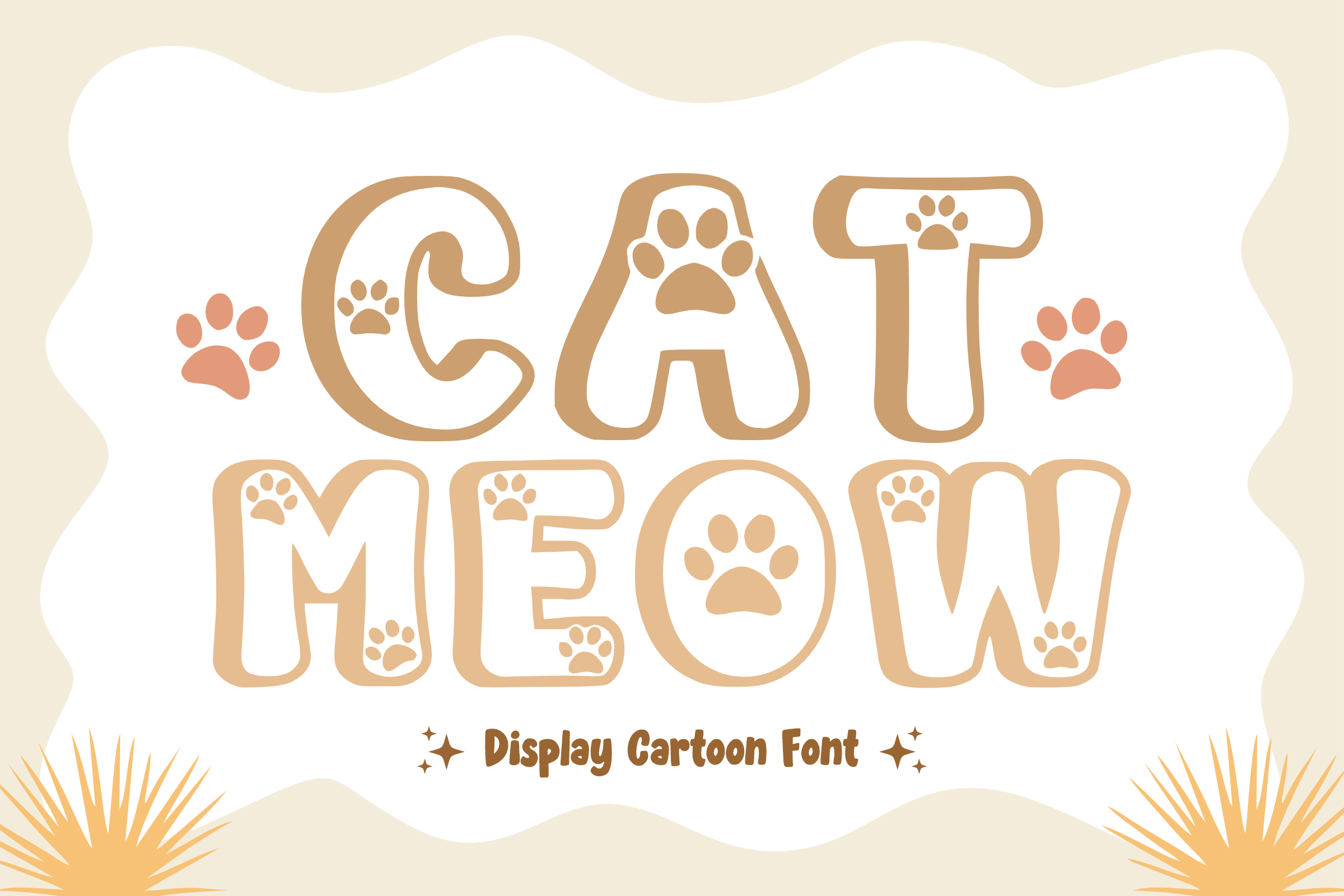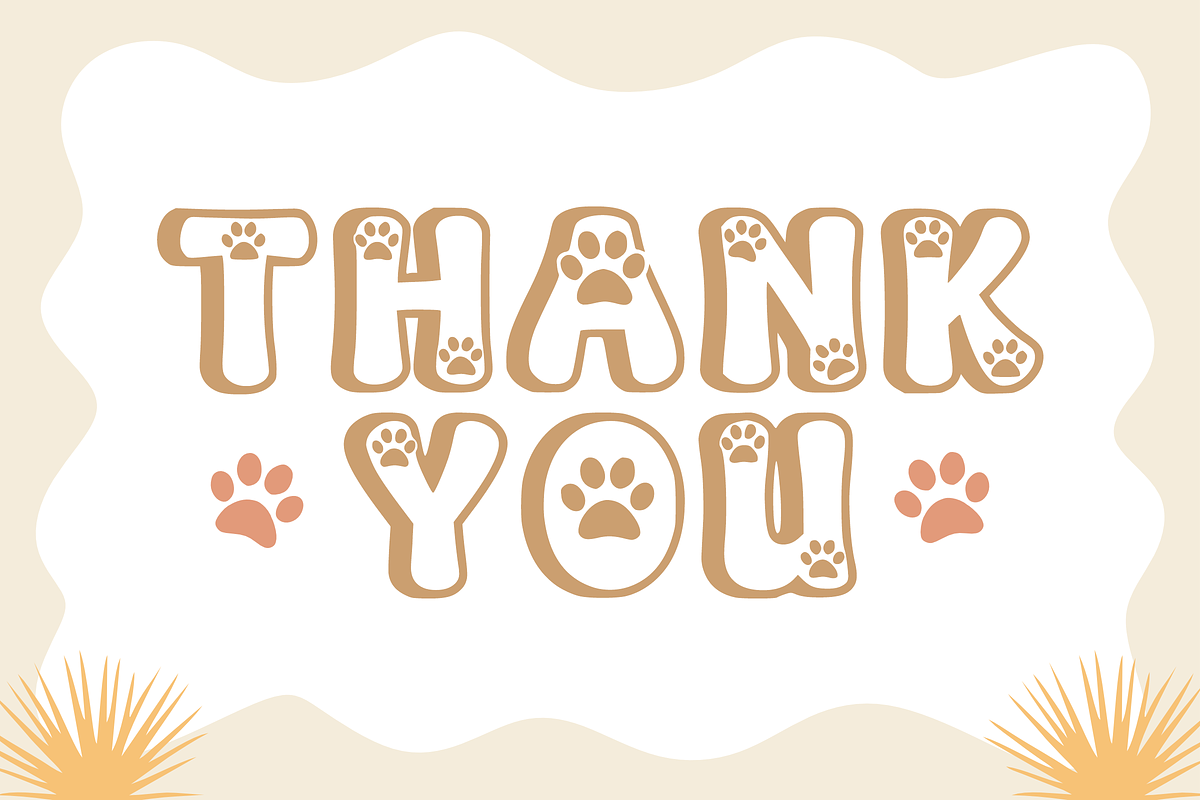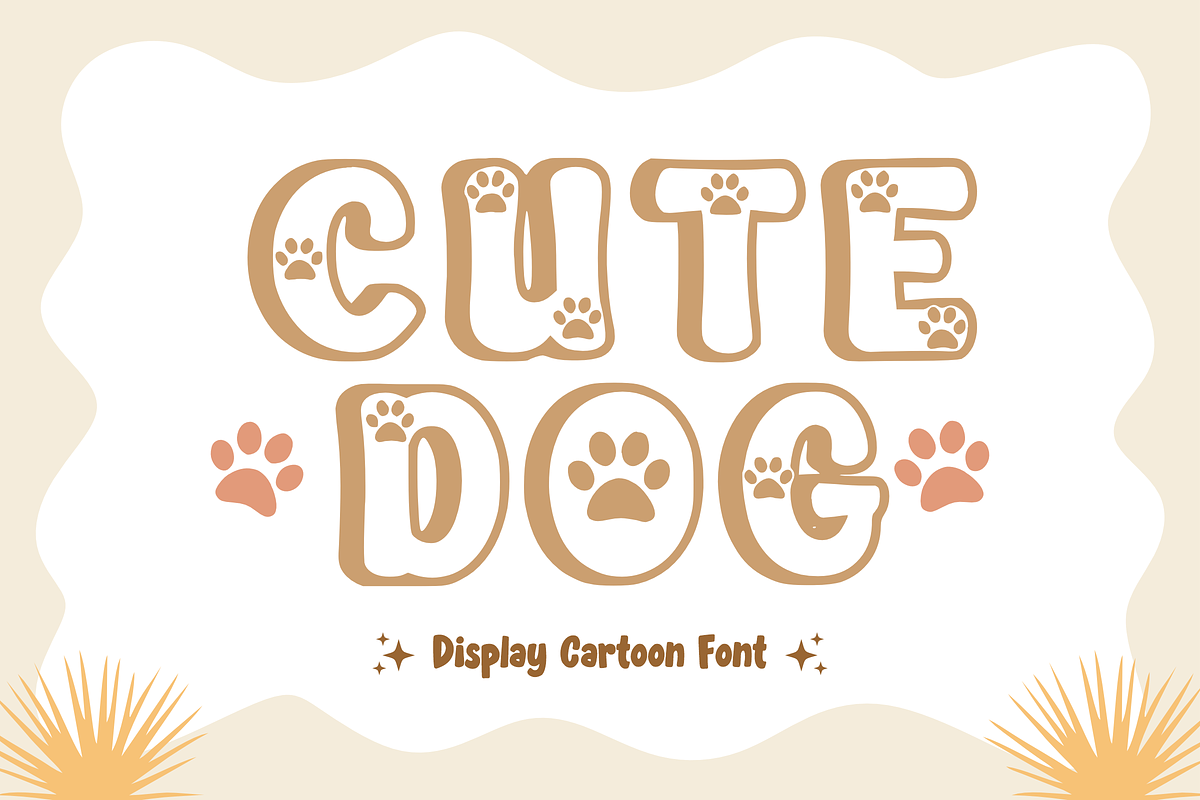
Cat Meow - Cartoon Font Types
Unveiling “Cat Meow,” a contemporary font enriched with endearing feline characters. Each character is ingeniously combined with a charming cat paw icon, rendering it effortless to identify. It is an ideal fit for enlivening sublimation designs for apparel like t-shirts, or tote bags, as well as ceramic accessories like mugs. Moreover, it adds a quirky sparkle to animations and laces comic titles with a playful spirit. So, lay the canvas of your inspiration here, bring to life quirky and engaging designs. Don’t forget to show your love for our store by liking and following for constant updates, your support fuels our creative engine to offer more novel and unique fonts. Our sincere gratitude for your continued encouragement!